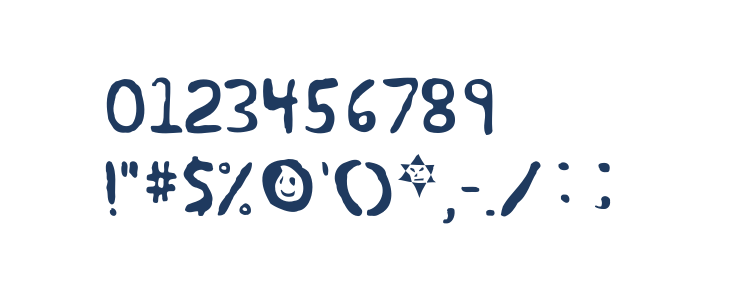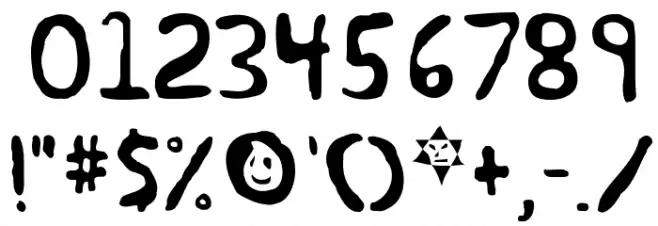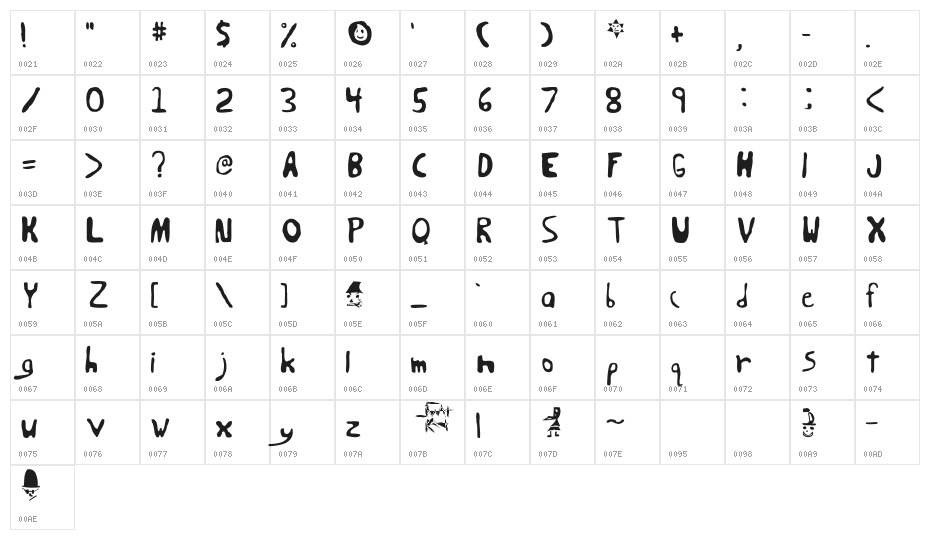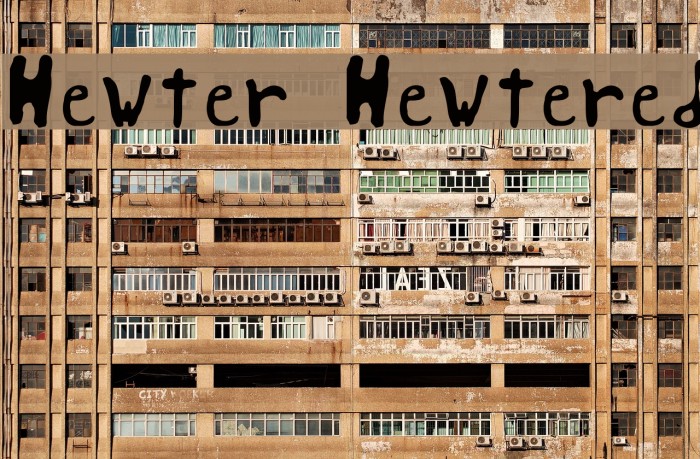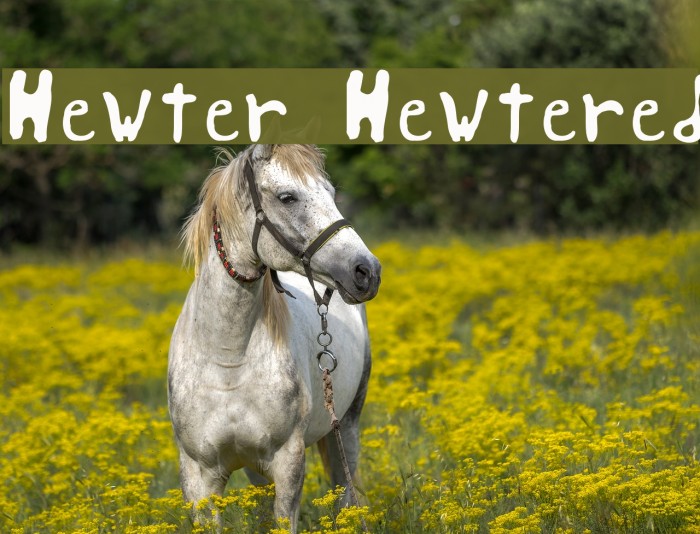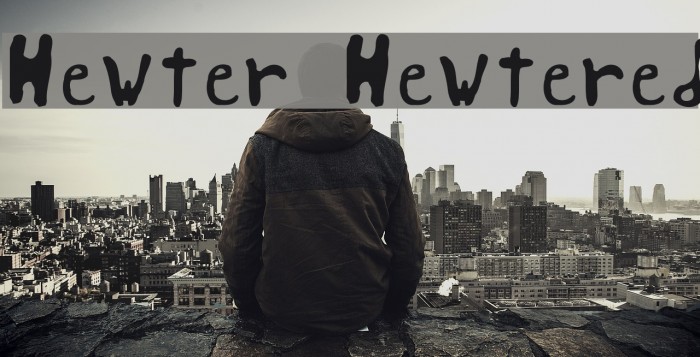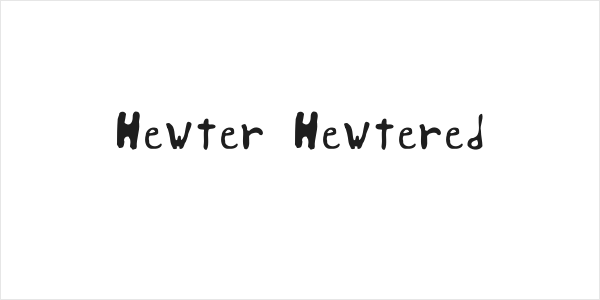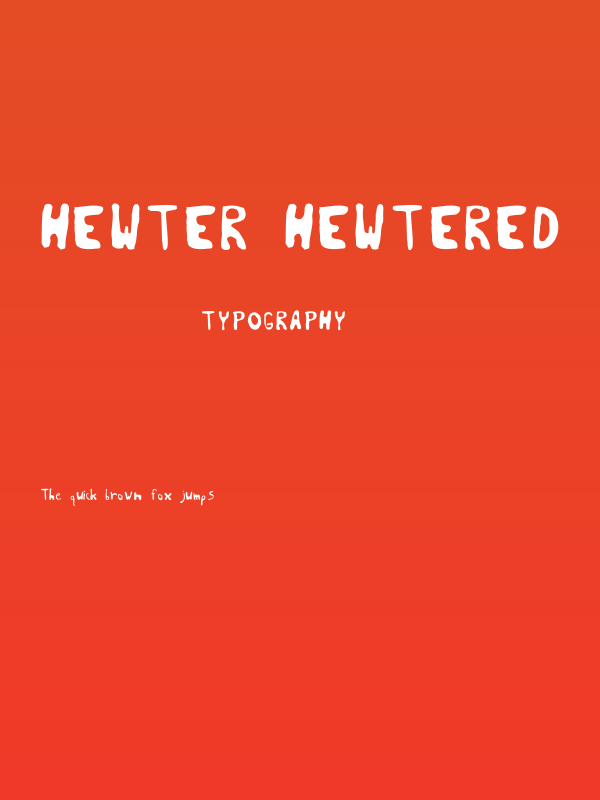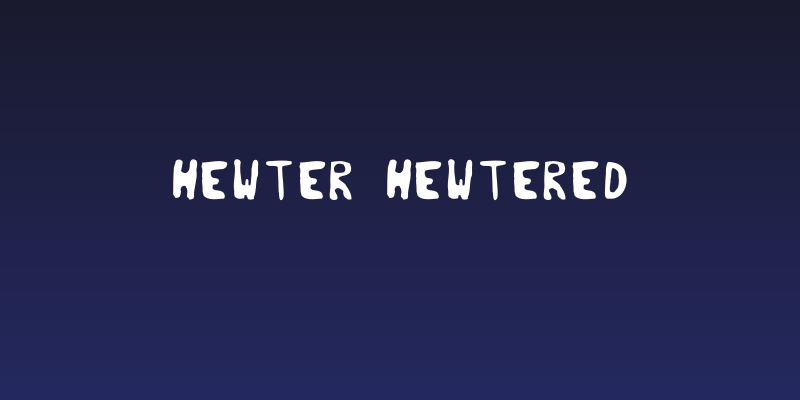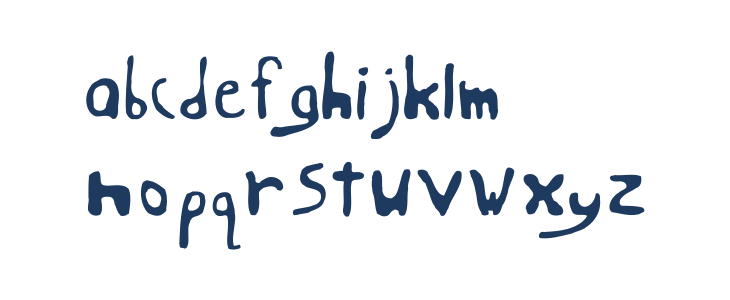
Hewter Hewtered Font
Hewter Hewtered Description
This font features a playful and quirky design with uneven, hand-drawn characters that give it a whimsical and artistic feel. The letters are bold and slightly irregular, adding a sense of movement and energy. The uppercase and lowercase letters maintain a consistent style, with rounded edges and varying stroke widths. Numbers and special characters follow the same playful aesthetic, making the font suitable for creative and informal projects. The overall appearance is reminiscent of doodles or casual handwriting, making it ideal for designs that require a personal touch.
| Proposed Projects | Ideal for children's books, creative posters, casual invitations, and artistic branding. |